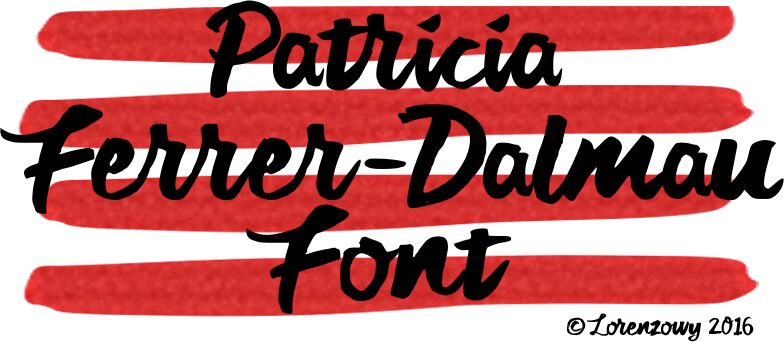
Patricia Ferrer-Dalmau (i)
Patricia Ferrer-Dalmau, designed by the talented Lorenzo Ong, stands as a captivating brush-style font that exudes boldness and artistic flair. Its vigorous brush strokes convey a sense of individuality and creativity, making it an excellent choice for projects that require a personal touch with a strong visual impact.
The font's robust weight ensures that it captures attention, while its organic texture adds depth and character to any creative work. From marketing materials and social media graphics to packaging design and editorial content, Patricia Ferrer-Dalmau is versatile enough to bring warmth and dynamism to various applications.
Embrace the distinct personality of Patricia Ferrer-Dalmau in your next project for an infusion of expressive style that resonates with audiences seeking authenticity and artistic expression.
Patricia Ferrer-Dalmau (i) Font
by Lorenzo Ong (2016)
A feisty, spirited and beauteous font amalgamating the
brashness of Augusto Ferrer-Dalmau's brushes with
bucolic Catalonian elegance and allure. An eclectic
mix of Salvador Dali's futurism and Antoni Gaudi's
luxuriance and organic structural constructs.
The first in its typeface, supporting over 12 languages.
Catalan, Danish, English, French, German,
Icelandic, Latvian, Lithuanian, Malay,
Norwegian, Spanish, Swedish.
Inspired by the works of Tzehern (paperth.co),
RojasLeon, Claudio Gil & Pokras Lampas.
Patricia Ferrer-Dalmau (i) Font
by Lorenzo Ong (2016)
A feisty, spirited and beauteous font amalgamating the
brashness of Augusto Ferrer-Dalmau's brushes with
bucolic Catalonian elegance and allure. Taming the
futurism of Salvador Dali's paintings with Gaudi's
luxuriance and organic structural constructs.
Ultimately, the Patricia Ferrer-Dalmau (i)
Font is an eclectic mix of florid
form and functional cogency.
The first in its typeface, supporting over 12 languages.
Catalan, Danish, French, English, German,
Icelandic, Latvian, Lithuanian, Malay,
Norweigian, Spanish, Swedish.
Inspired by the works of Tzehern ,
RojasLeon, Claudio Gil & Pokras Lampas.